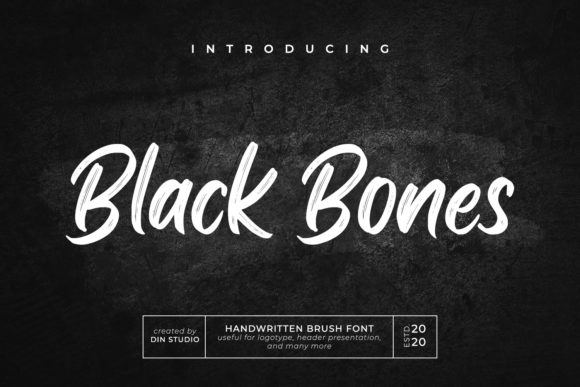
Introducing Black Bones Font, a masterpiece created by Din Studio, designed to captivate and inspire. This classy script font, combined with its brush textured handwritten style, will take your design projects to new heights.
With its unique and powerful characteristics, Black Bones Font guarantees to make a lasting impression. Whether you're working on branding, headings, wedding designs, invitations, signatures, logos, labels, or any other creative endeavor, this font is your ultimate tool.
Let your creativity soar as Black Bones Font adds a touch of elegance and sophistication to your projects. Its exquisite brush strokes and intricate details will mesmerize your audience, leaving them in awe of your artistic vision.
The versatility of Black Bones Font knows no bounds. It effortlessly adapts to any design concept, effortlessly conveying the desired message. Its captivating curves and flowing lines create a harmonious balance, ensuring your text stands out with style and grace.
Immerse yourself in the world of endless possibilities as Black Bones Font unlocks your creative potential. Its seamless integration with various design software allows for smooth and seamless implementation, saving you time and effort.
Impress your clients and engage your audience with the alluring charm of Black Bones Font. Each letter is carefully crafted to evoke emotion and spark intrigue. Your text will come alive, leaving a lasting impression on anyone who lays eyes on it.
Don't settle for ordinary fonts when you can have the best font for logo text. Black Bones Font will take your branding to the next level, creating a unique and memorable identity for your business. Your logo will become an emblem of excellence, instantly recognizable and highly coveted.
Unleash the power of Black Bones Font and witness your designs come to life. Join countless other satisfied designers who have experienced the magic of this font. Elevate your creations and leave a lasting impact on your audience.